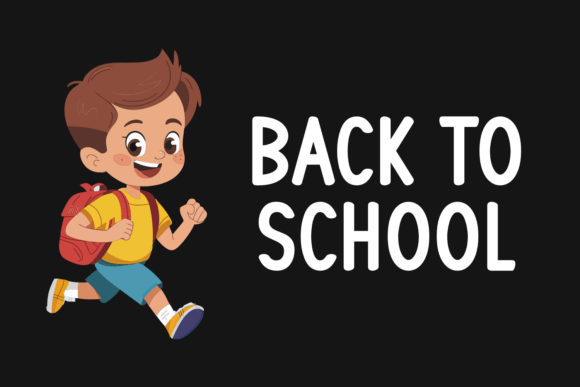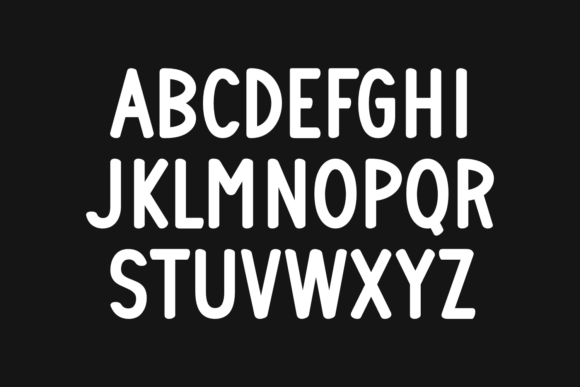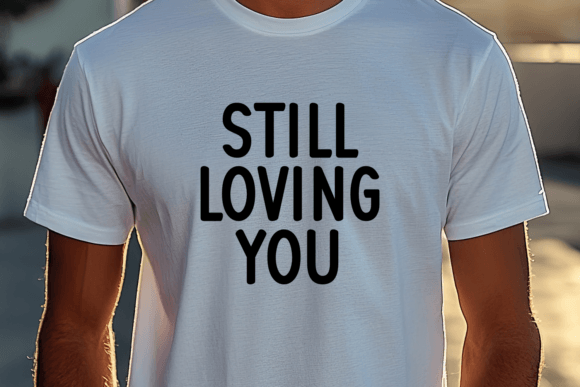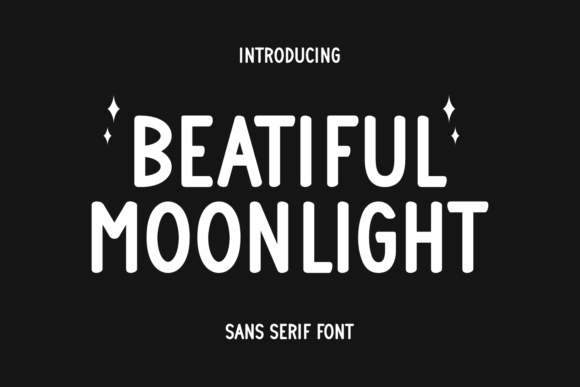
Introducing Beautiful Moonlight Font: Elevate Your Designs with Elegance
In the world of typography, a font can make or break a design. If you’re a designer or crafter looking for a clean, modern, and elegant sans serif font, look no further than Beautiful Moonlight. This stunning font features smooth lines and gentle curves, making it perfect for a wide range of creative projects. In this article, we’ll dive into the world of Beautiful Moonlight Font, exploring its features, benefits, and uses.
What is Beautiful Moonlight Font?
Beautiful Moonlight is a clean and modern sans serif font designed to bring a touch of elegance to your designs. Its smooth lines and gentle curves create a fresh and sophisticated look, making it ideal for designs that require a high level of readability. Whether you’re working on an invitation, poster, or any other creative project, Beautiful Moonlight Font is the perfect choice.
Key Features of Beautiful Moonlight Font
• Clean and Modern Design: Beautiful Moonlight Font boasts a sleek and contemporary design that’s perfect for modern designs.
• Smooth Lines and Gentle Curves: The font’s smooth lines and gentle curves create a soft and elegant look that’s easy on the eyes.
• High Readability: The font’s clear and concise design makes it easy to read, even at small sizes.
• Versatile: Beautiful Moonlight Font is perfect for a wide range of creative projects, from invitations and posters to logos and branding.
Benefits of Using Beautiful Moonlight Font
So, why choose Beautiful Moonlight Font for your next design project? Here are just a few benefits of using this stunning font:
• Elegant and Sophisticated: Beautiful Moonlight Font adds a touch of elegance and sophistication to any design.
• Improved Readability: The font’s clear and concise design improves readability, making it perfect for designs that require a lot of text.
• Flexibility: Beautiful Moonlight Font is versatile and can be used for a wide range of creative projects.
Use Cases for Beautiful Moonlight Font
Beautiful Moonlight Font is perfect for a wide range of creative projects, including:
• Invitations: Create stunning invitations for weddings, parties, and other special events.
• Posters: Design eye-catching posters for movies, concerts, and other events.
• Logos and Branding: Use Beautiful Moonlight Font to create elegant and sophisticated logos and branding materials.
• Social Media Graphics: Create stunning social media graphics that are sure to grab attention.
In conclusion, Beautiful Moonlight Font is a stunning clean and modern sans serif font that’s perfect for designers and crafters looking for a fresh and elegant look. With its smooth lines, gentle curves, and high readability, this font is ideal for a wide range of creative projects. Whether you’re working on an invitation, poster, or any other design project, Beautiful Moonlight Font is sure to elevate your design to the next level.